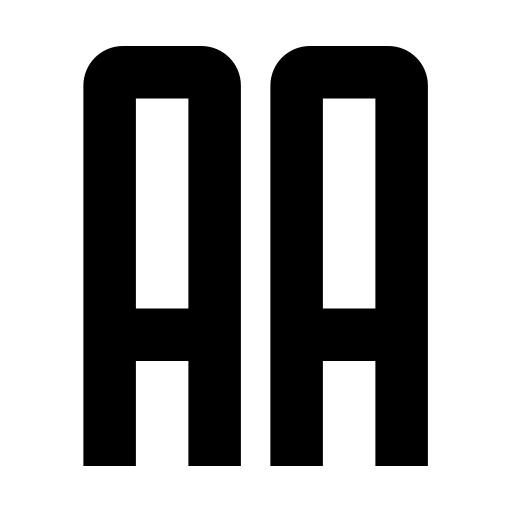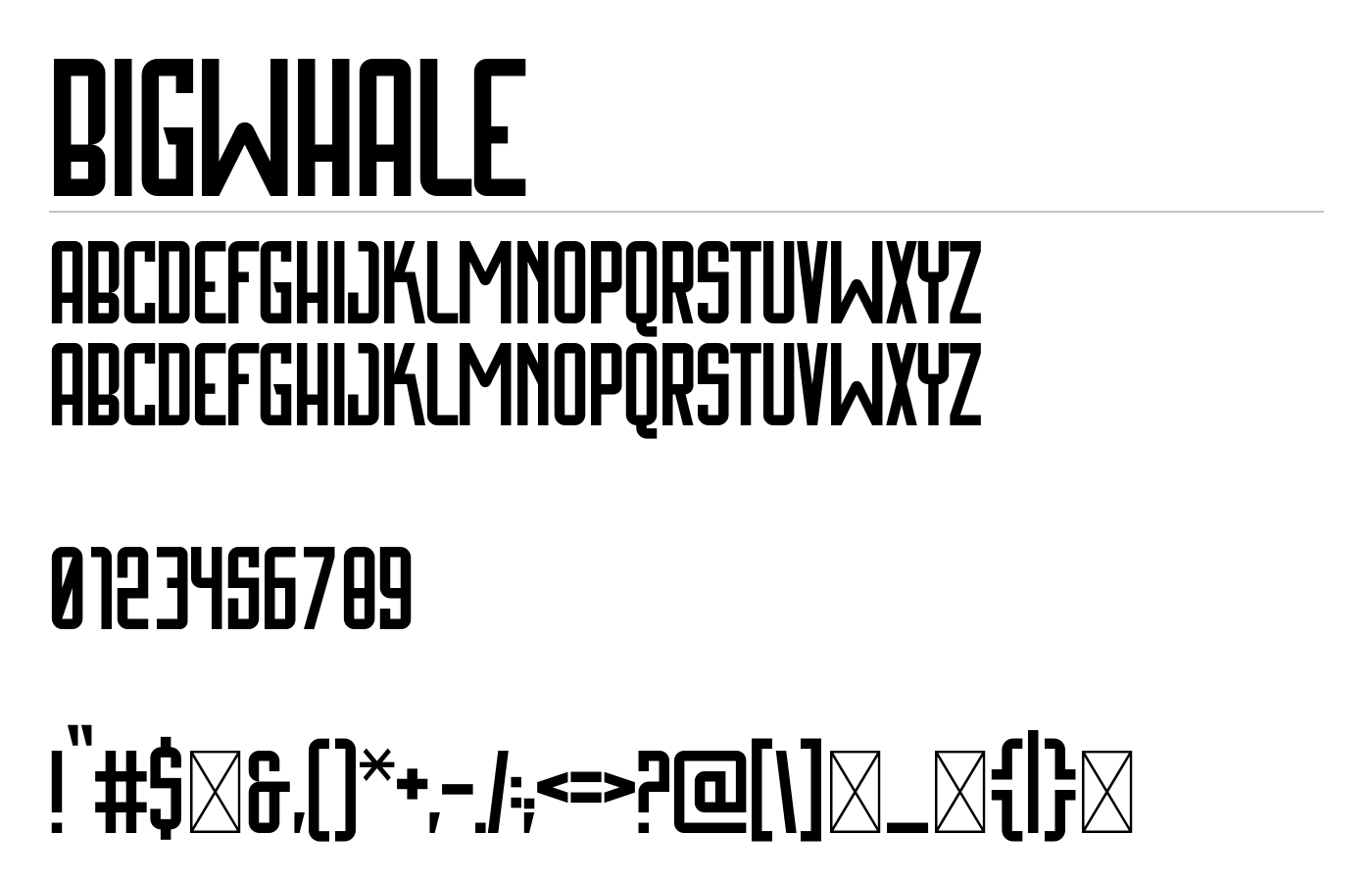
Bigwhale is a tall, condensed sans-serif font with a strong, modern industrial feel. Its clean, geometric letterforms and uniform stroke weight give it a bold yet sleek appearance, ideal for striking headlines, logos, and branding that require a contemporary, confident look. This font works well in designs that seek a powerful message with a minimalist, urban edge.
Bigwhale Font
About Bigwhale Font
| Font family | Bigwhale Font |
| Designer | Rodrigo Vargas |
| Font subfamily | Condensed |